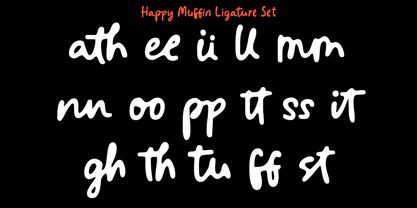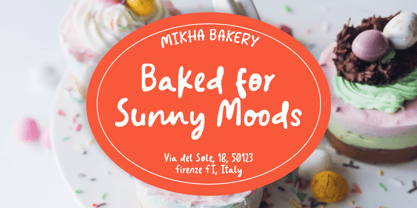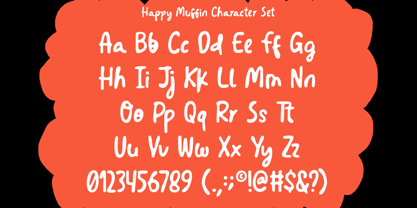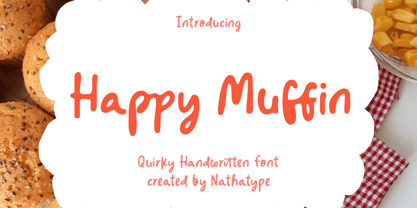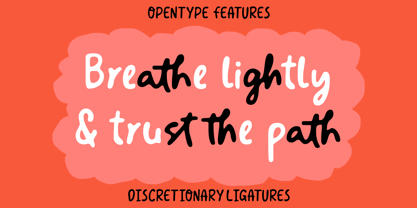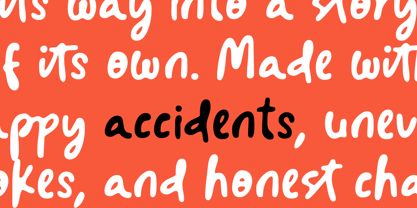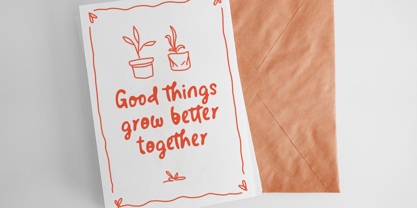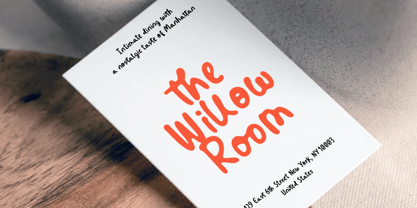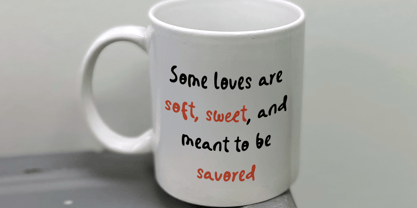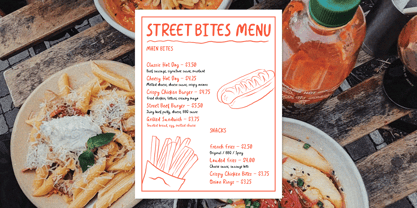
Happy Muffin
by Nathatype
The Happy Muffin Font Family was designed by Donis Miftahudin and published by Nathatype. Happy Muffin contains 1 styles. More about this family
Happy Muffin is a delightful handwritten font designed to bring personality, warmth, and a touch of whimsy to your creative projects. The beauty of Happy Muffin lies in its balance. The light stroke weight keeps the design airy and elegant, while the rounded shapes soften every letter, creating a welcoming and approachable aesthetic. The low contrast ensures visual consistency across all characters, making the font easy to read while maintaining its handcrafted appeal. Each letter feels slightly unique, giving your typography an authentic, human touch. In addition, enjoy the features here. Features: Ligatures Multilingual Supports PUA Encoded Numerals and Punctuations Happy Muffin fits in logos, quotes, branding, posters, and many more designs. Find out more ways to use this font by taking a look at the font preview. Thanks for purchasing our fonts. Hopefully, you have a great time using our font. Feel free to contact us anytime for further information or when you have trouble with the font. Thanks a lot and happy designing.